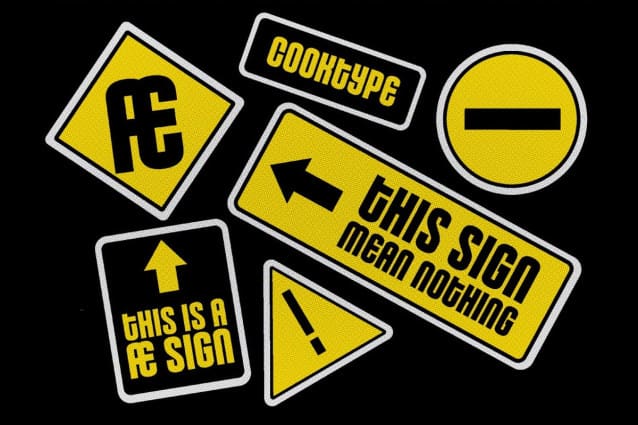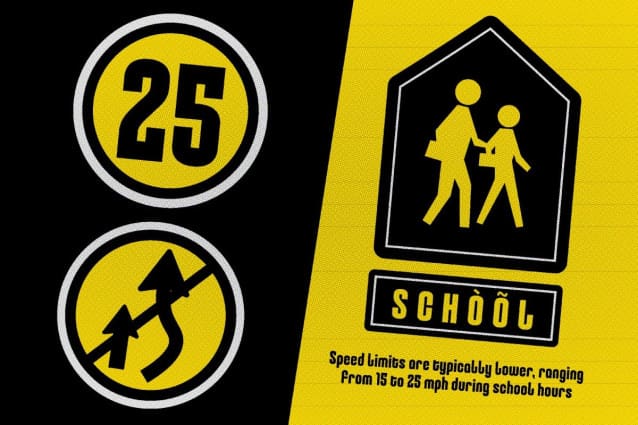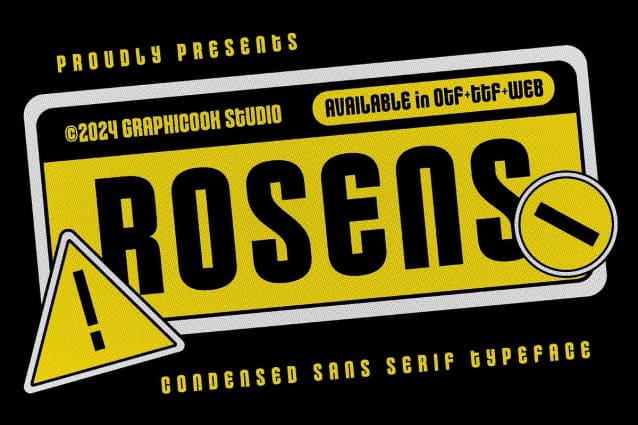
Rosens Font
Rosens Font blends rounded and condensed styles into one versatile typeface. It’s a great choice for any design project
Rosens is perfect for headlines, logotypes, magazines, packaging, quotes, movies, games, cover albums, book covers, and flyers, it’s a perfect solution for creating eye-catching designs that stand out in any context.